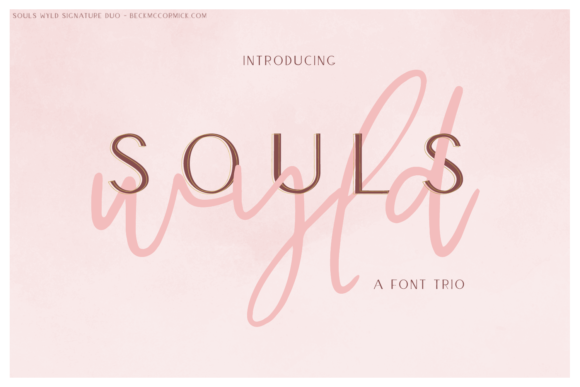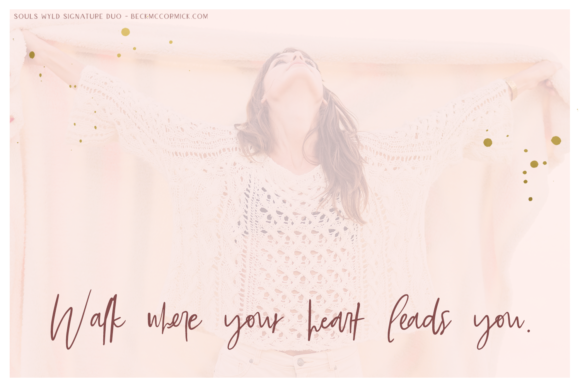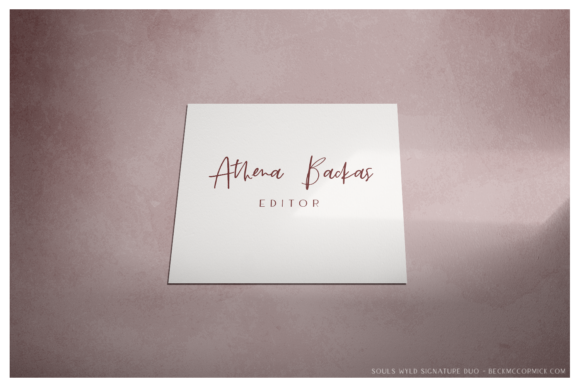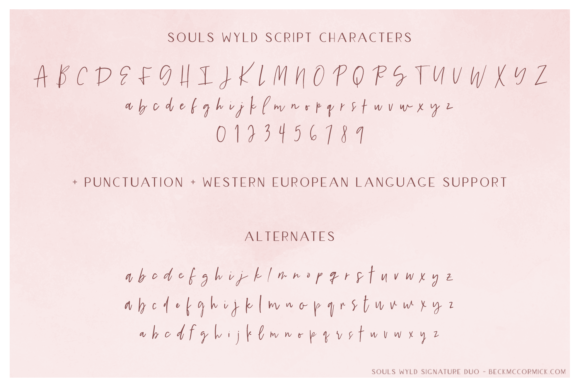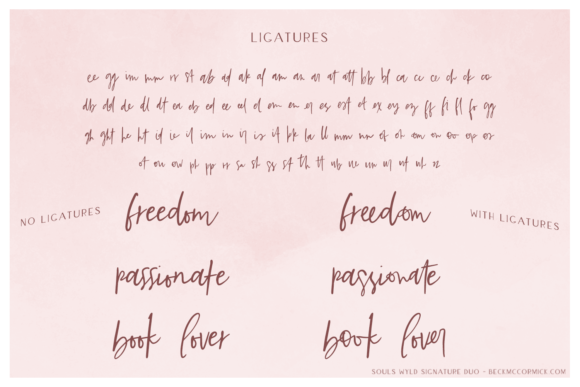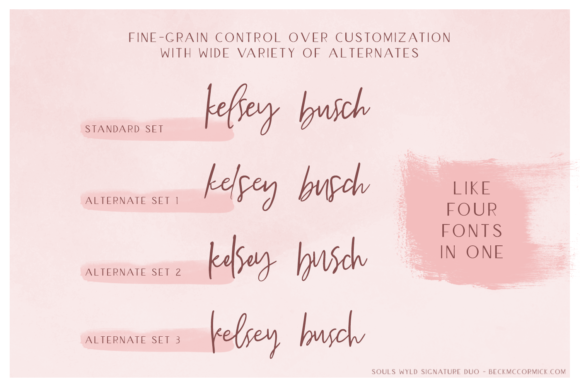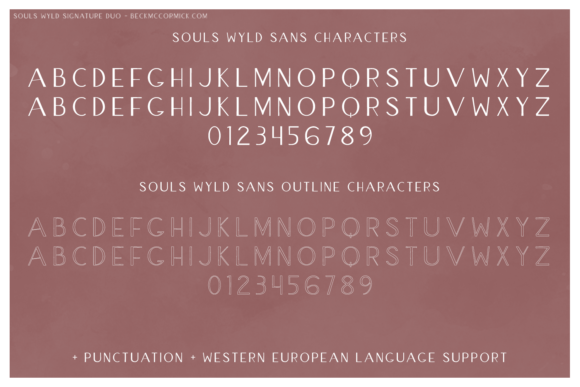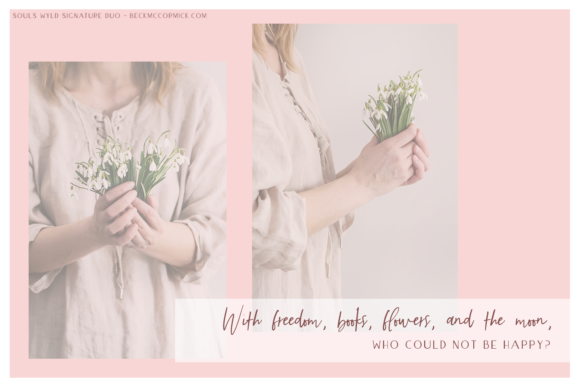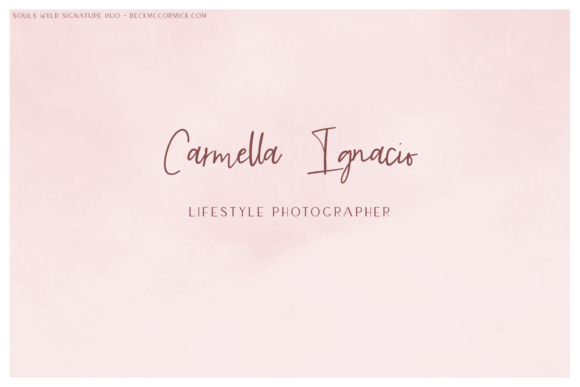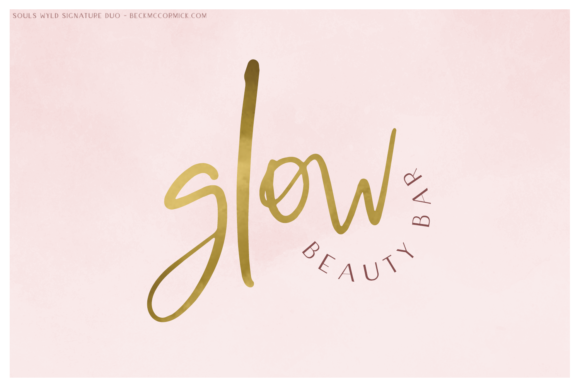
Souls Wyld Font Trio Font
Souls Wyld Font Trio is an expertly paired font trio that includes a handwritten script with robust features, as well as two all-caps sans fonts – one solid, one outline. Great for a variety of design projects!